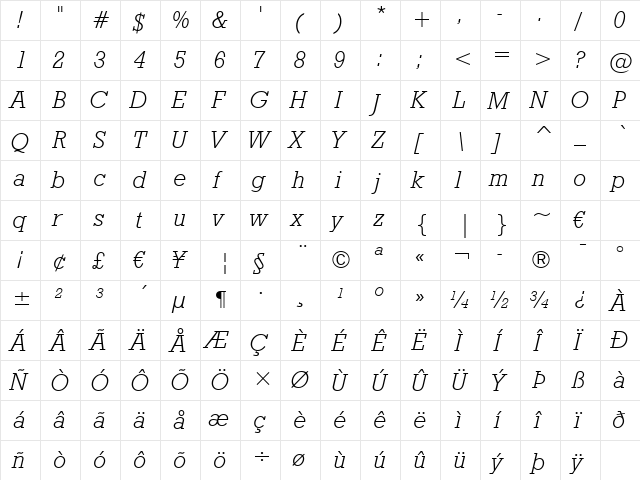
GeoSlb712 Lt BT Light Italic
Design Context for GeoSlb712 Lt BT Typeface
GeoSlb712 Lt BT is a composed and adaptable typeface that performs quietly and consistently across a wide range of design contexts. Its italic angle brings a sense of urgency and motion to the letterforms. The delicate stroke weight brings airiness and refinement to layouts.